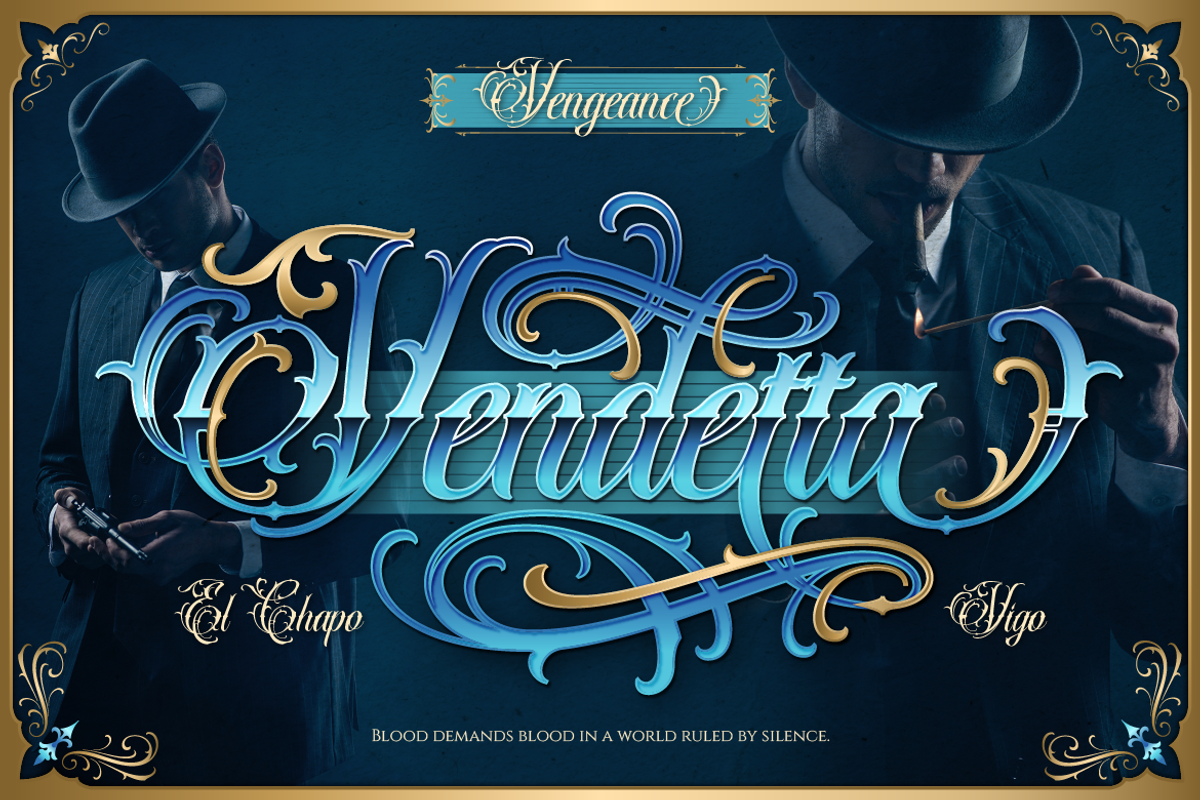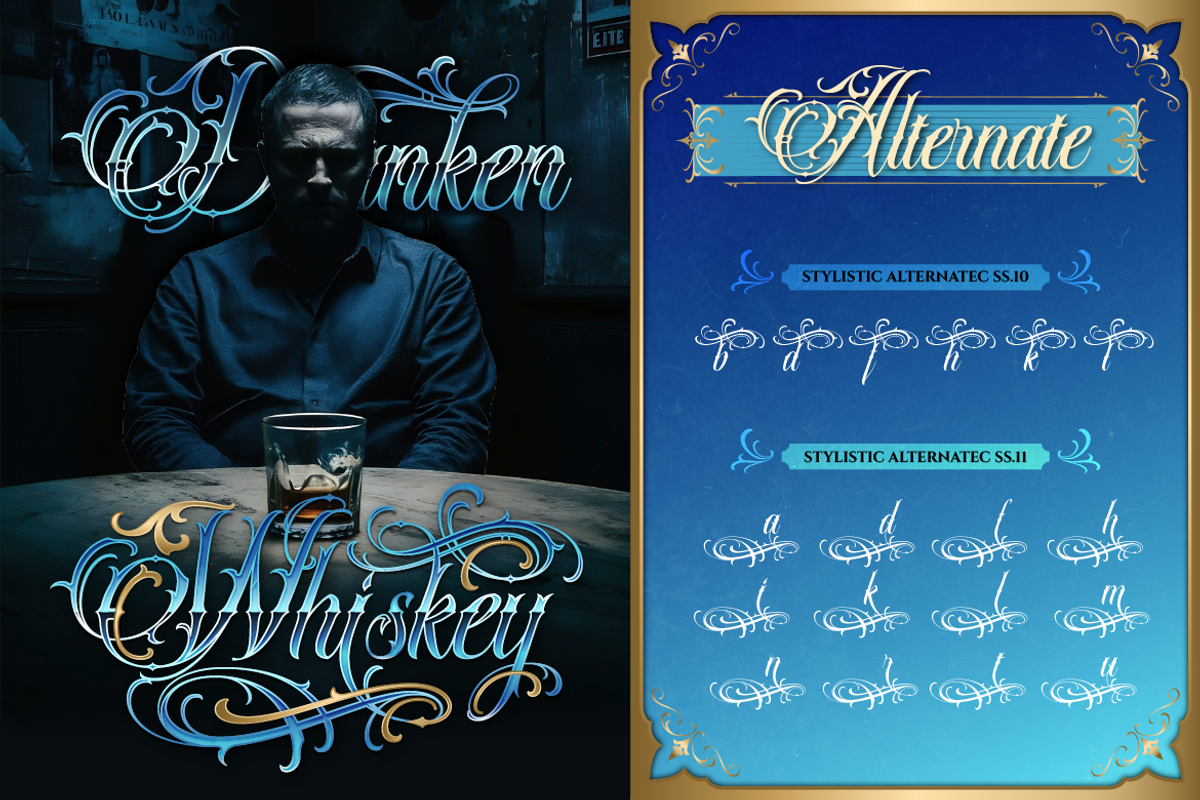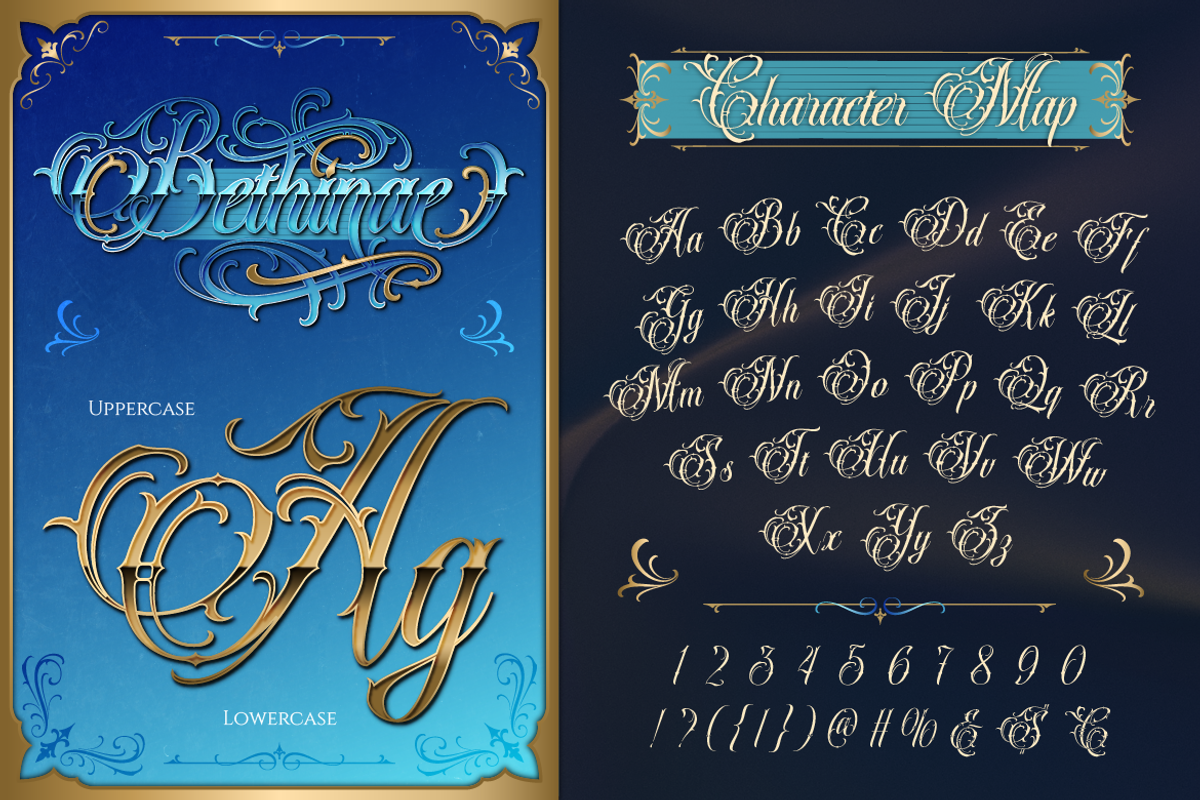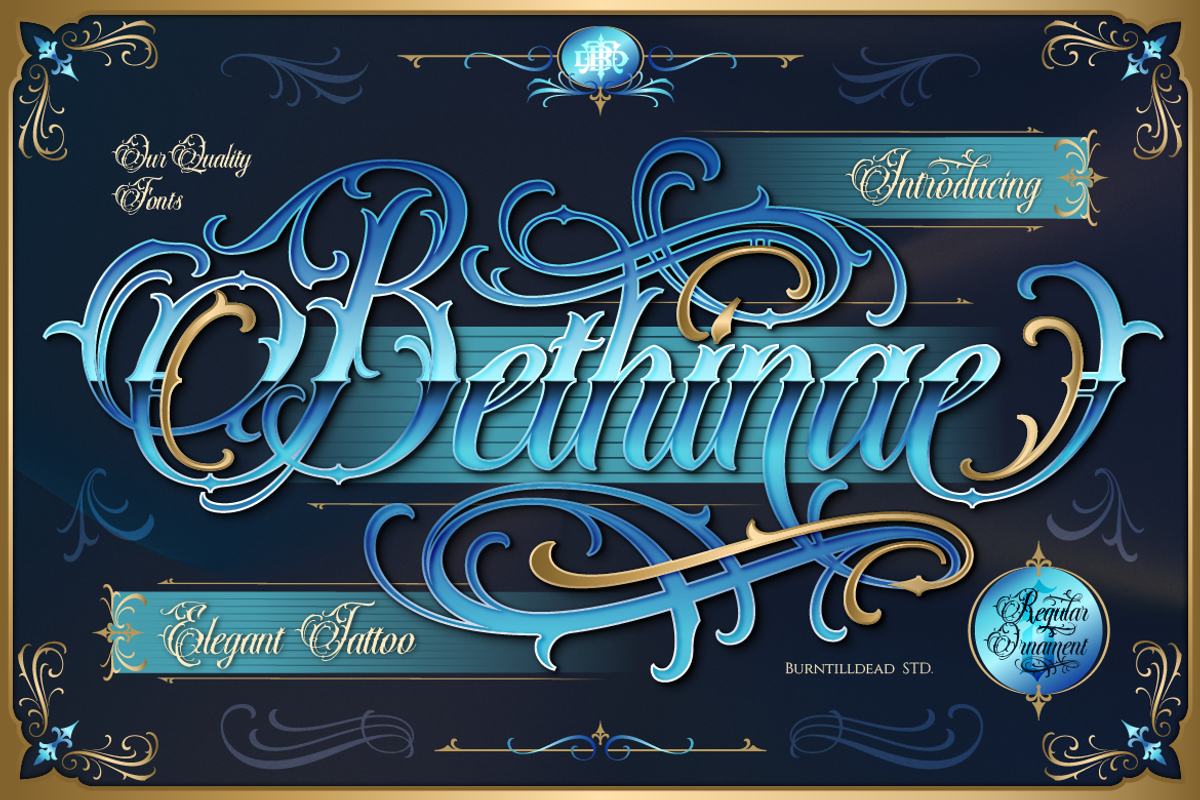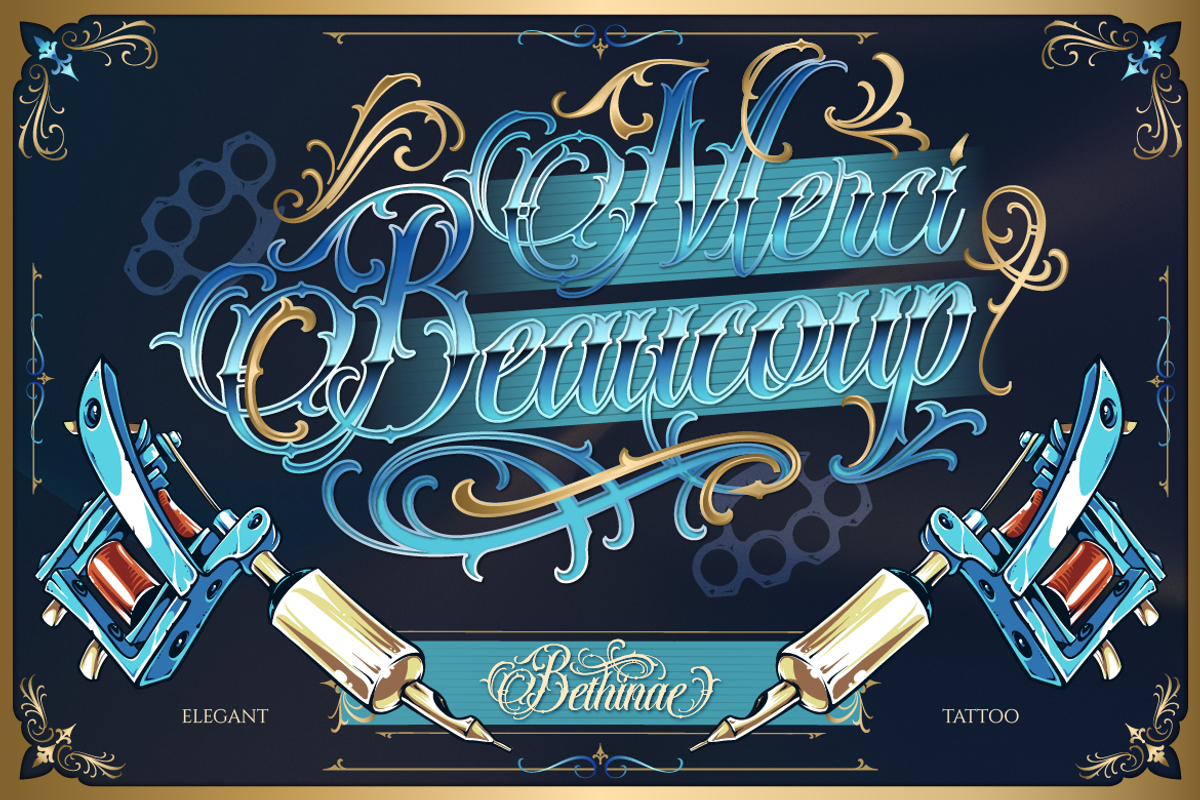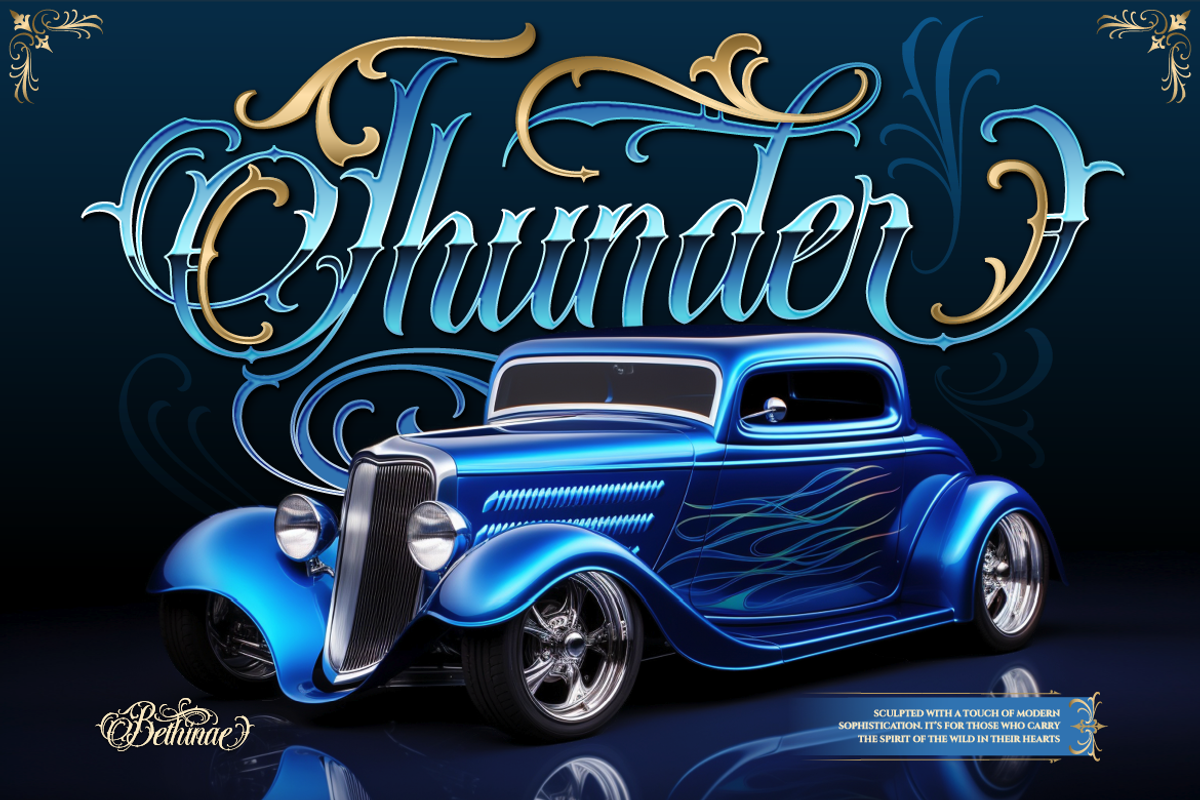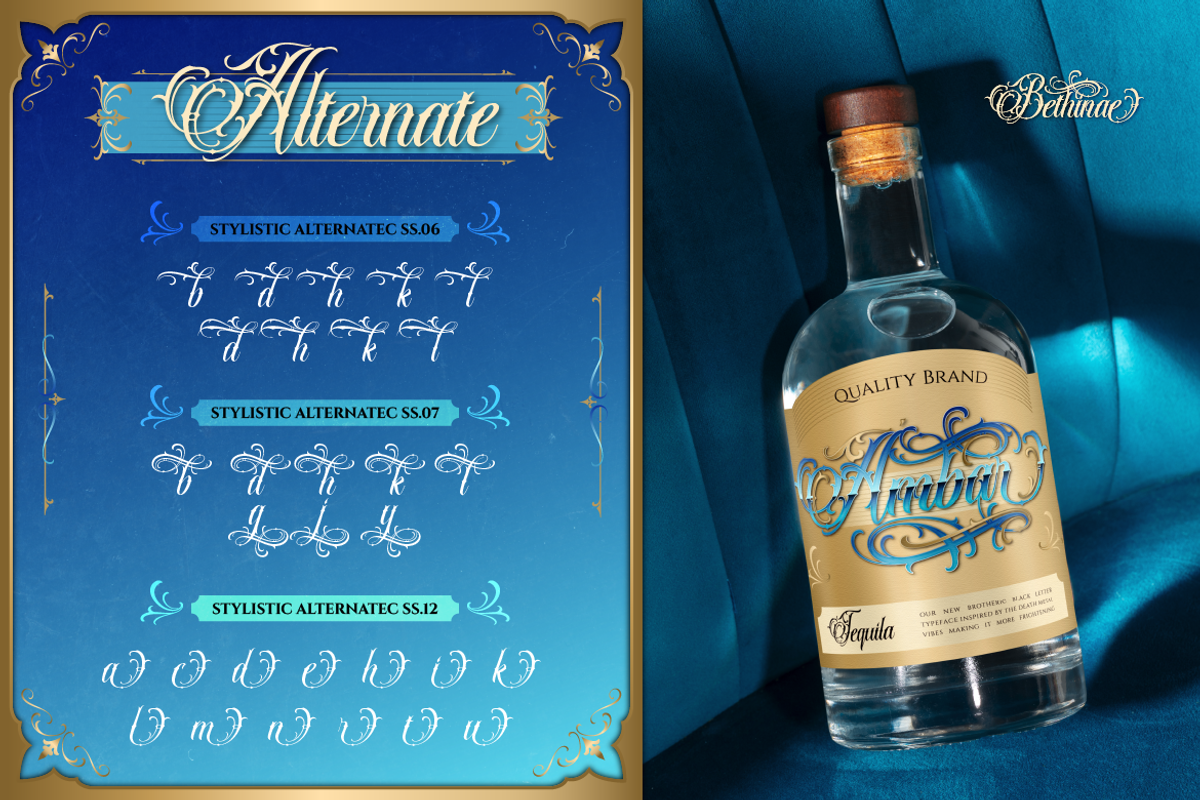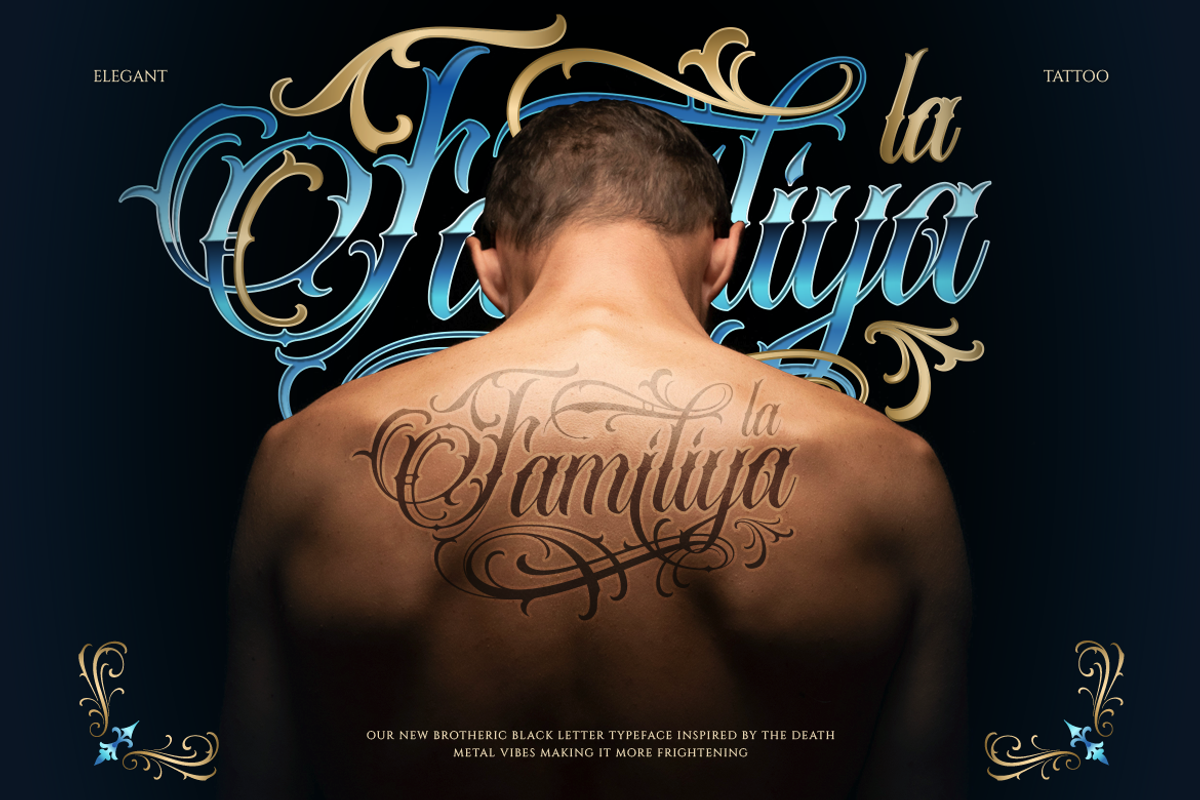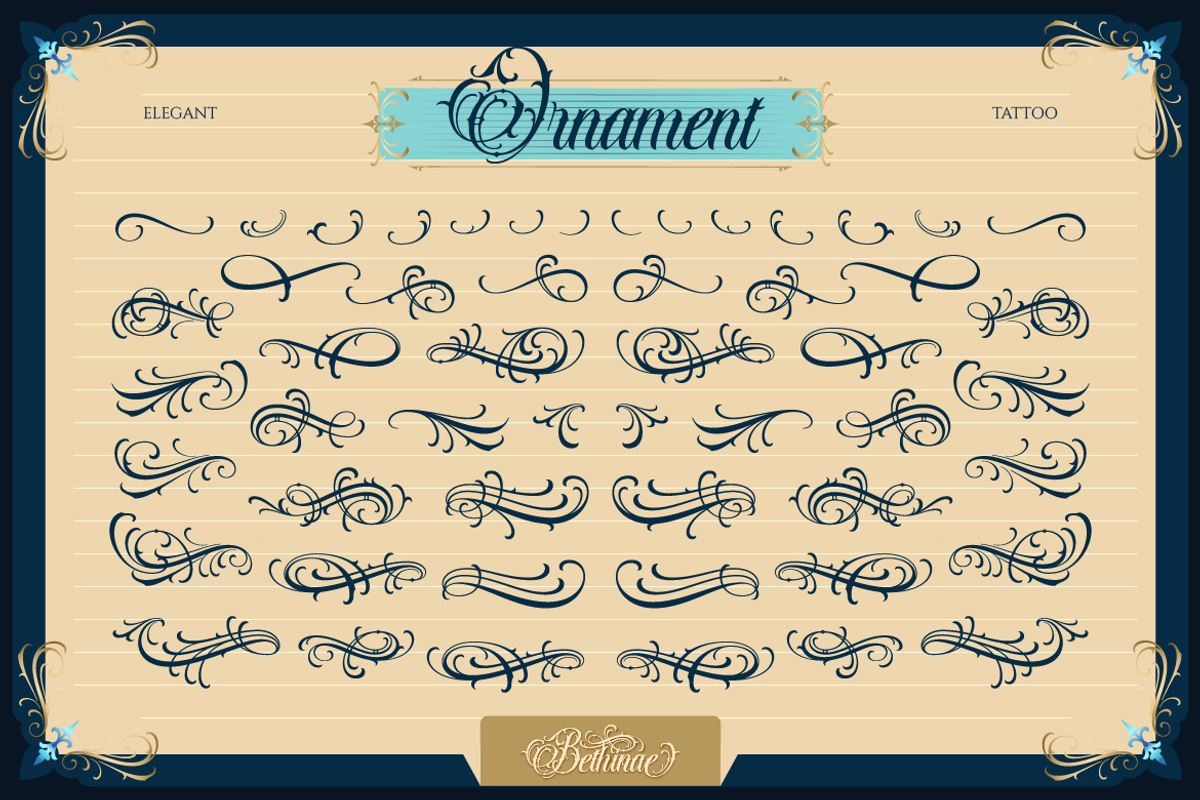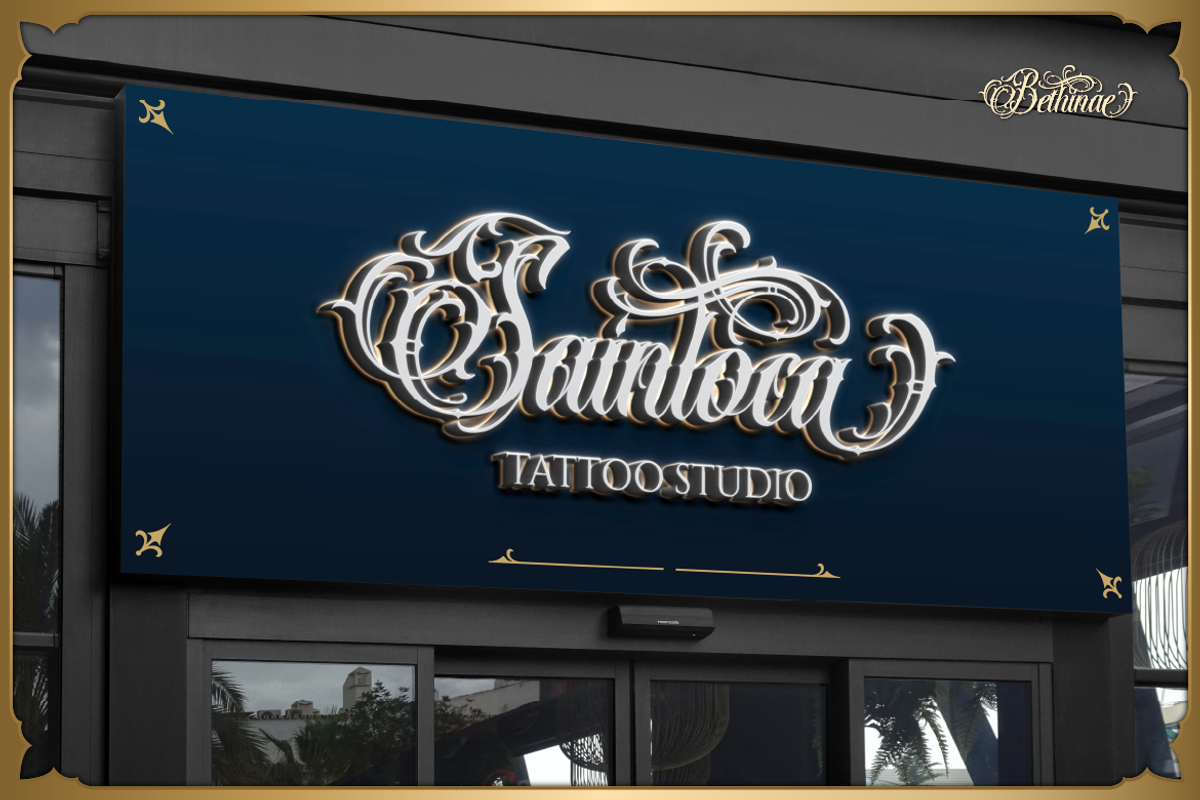
Bethinae
Proudly introduce, Bethinae , a script font with tattoo style flair inspired by the bold shapes of blackletter. This font combines elegance and masculinity in a unique way, featuring detailed flourishes and stylish swirls. Bethinae comes in two styles: Regular and Ornaments. The ornament style adds an extra touch of luxury, helping your designs feel more refined and step into a whole new visual world. It carries a glamorous dark vibe, luxurious yet mysterious, like an elegant gangster tattoo or an exclusive club logo. Perfect for barbershops, tattoo studios, luxury garages, or streetwear branding.
Number
Alternate
Bethinae Character Map